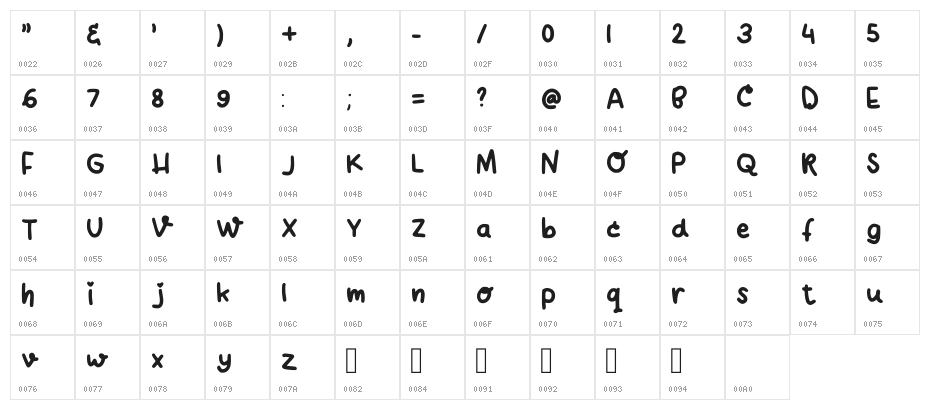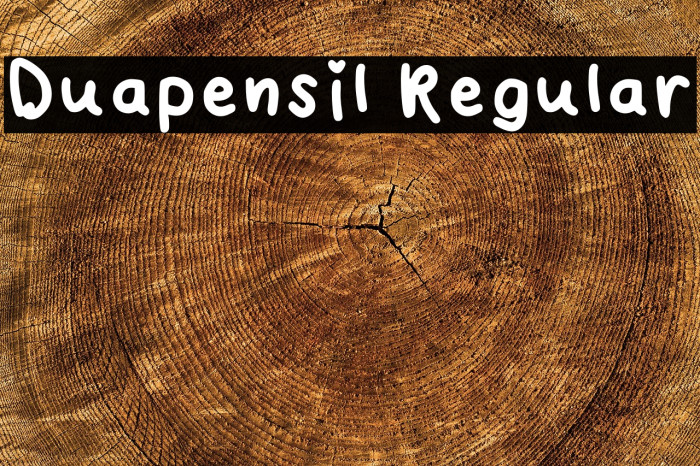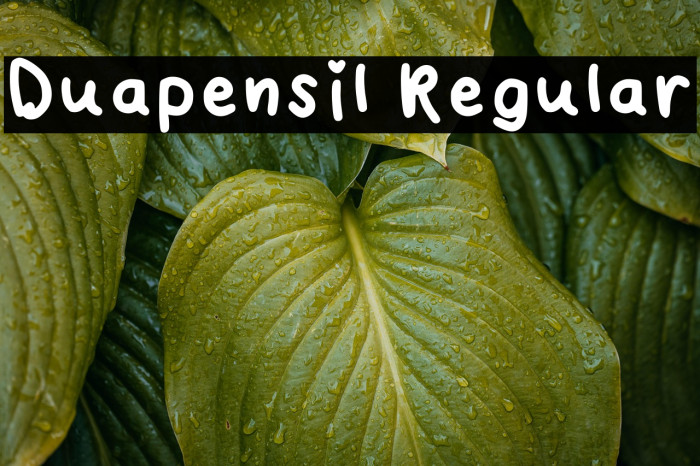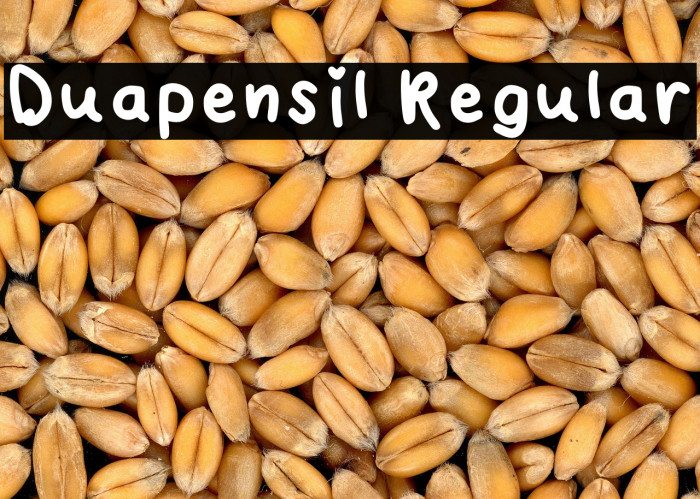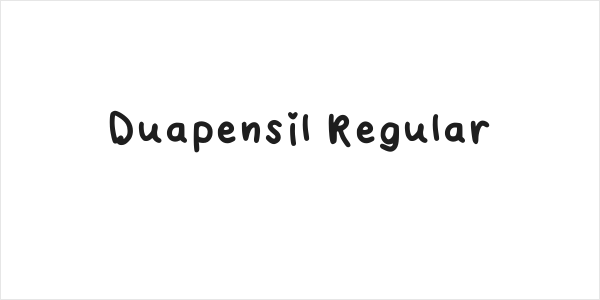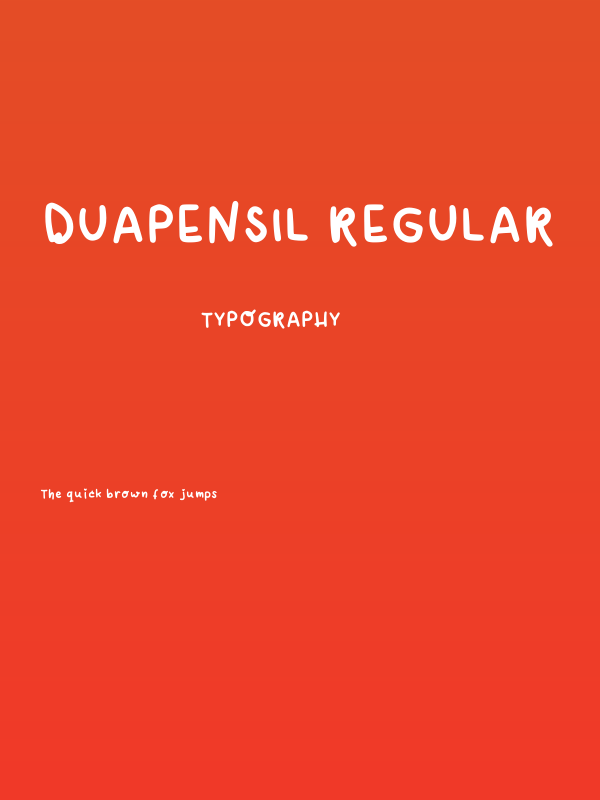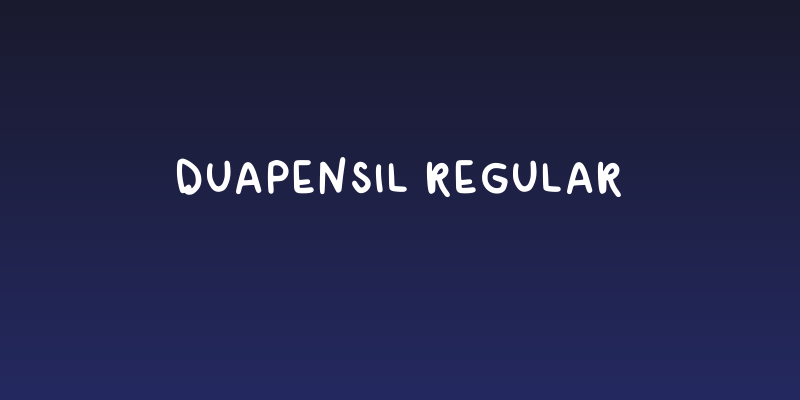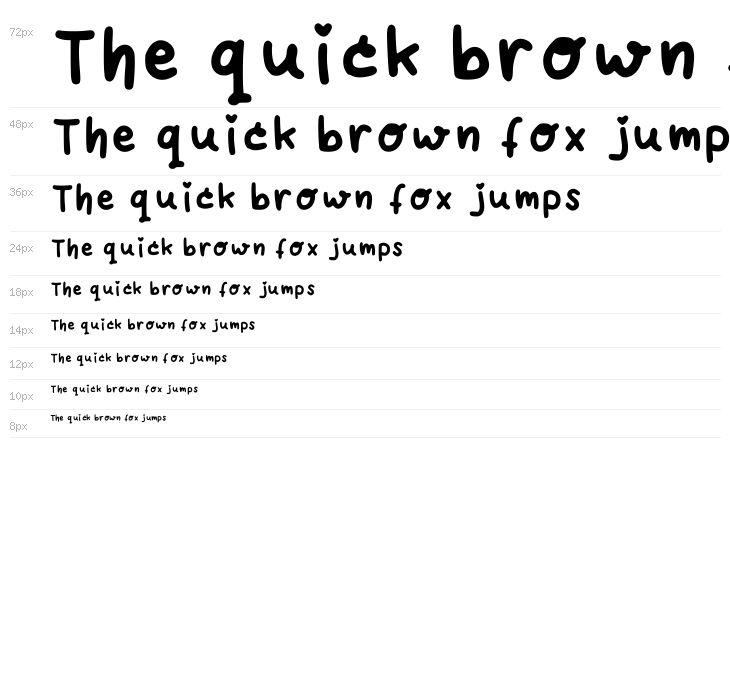
Duapensil Regular Font
Duapensil Regular Description
This playful and whimsical font features a handwritten style with rounded, bold strokes. Each character has a slightly uneven baseline, adding to its casual and friendly appearance. The letters are well-spaced, ensuring readability while maintaining a fun and informal vibe. The font includes both uppercase and lowercase letters, numerals, and a selection of special characters. Its unique charm makes it suitable for projects that require a personal touch or a lighthearted feel.
| Proposed Projects | Ideal for children's books, greeting cards, playful branding, and casual invitations. |